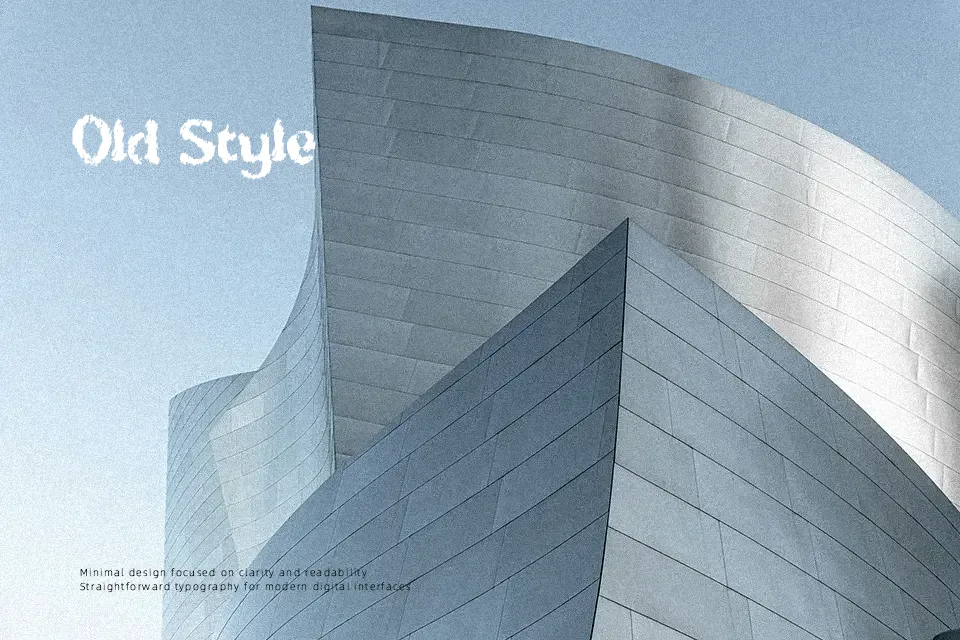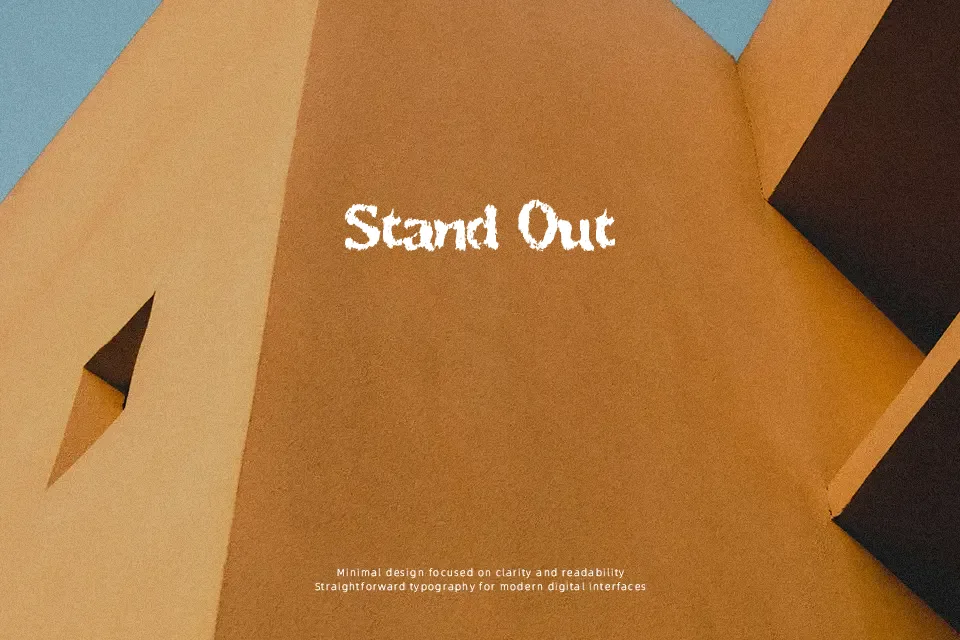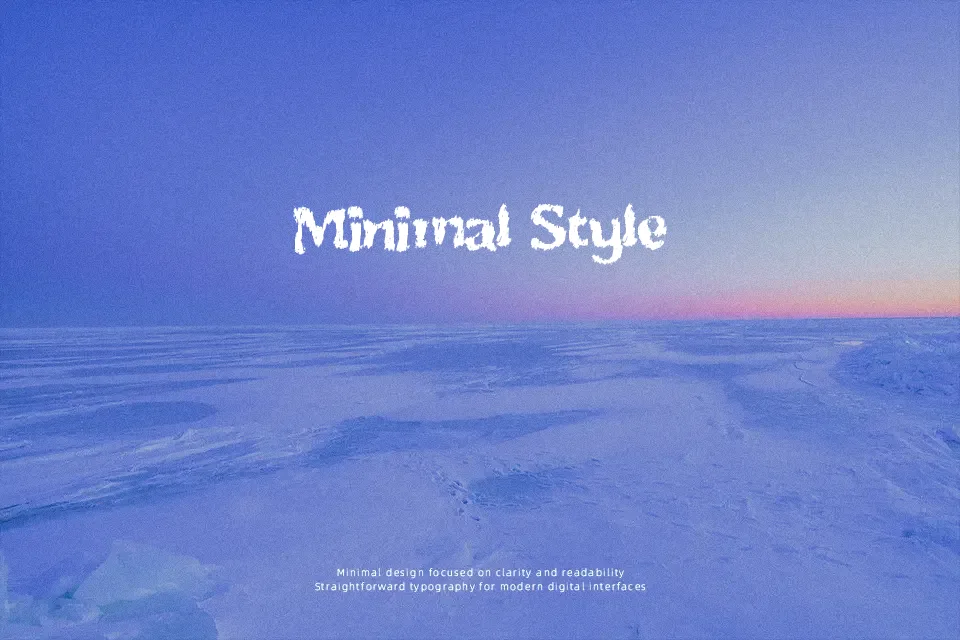
Total Freak Font
Total Freak Font presents a raw, eroded display structure defined by fractured contours, coarse stroke textures, and unevenly weathered silhouettes. Each character features robust proportions with minimal stroke contrast, giving the letterforms an imposing, blocky presence. The glyph spacing is intentionally compact, which reinforces a gritty visual density suitable for music festival banners, streetwear graphics, and dramatic video game title screens. However, the aggressive surface degradation substantially reduces letterform recognition when rendered at smaller sizes. In practical application, the typeface functions effectively as a punchy headline solution, but dense paragraphs or continuous editorial text quickly become illegible due to the intense distress across the characters.
Best For: horror film title cards, heavy metal album art, streetwear apparel graphics, Halloween event flyers
Not Ideal For: long body text, mobile interface labels, corporate annual reports, dense editorial columns
Perfect for film, headline, and music, with a dark and decorative style.